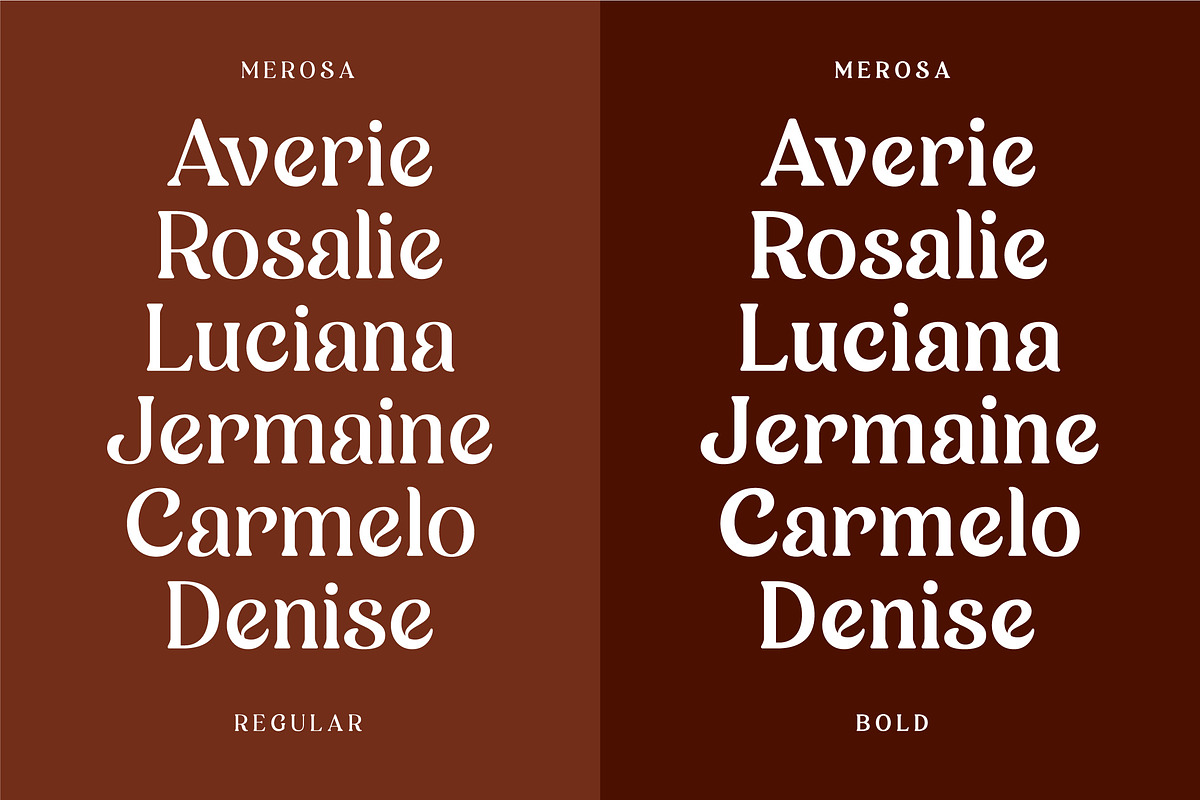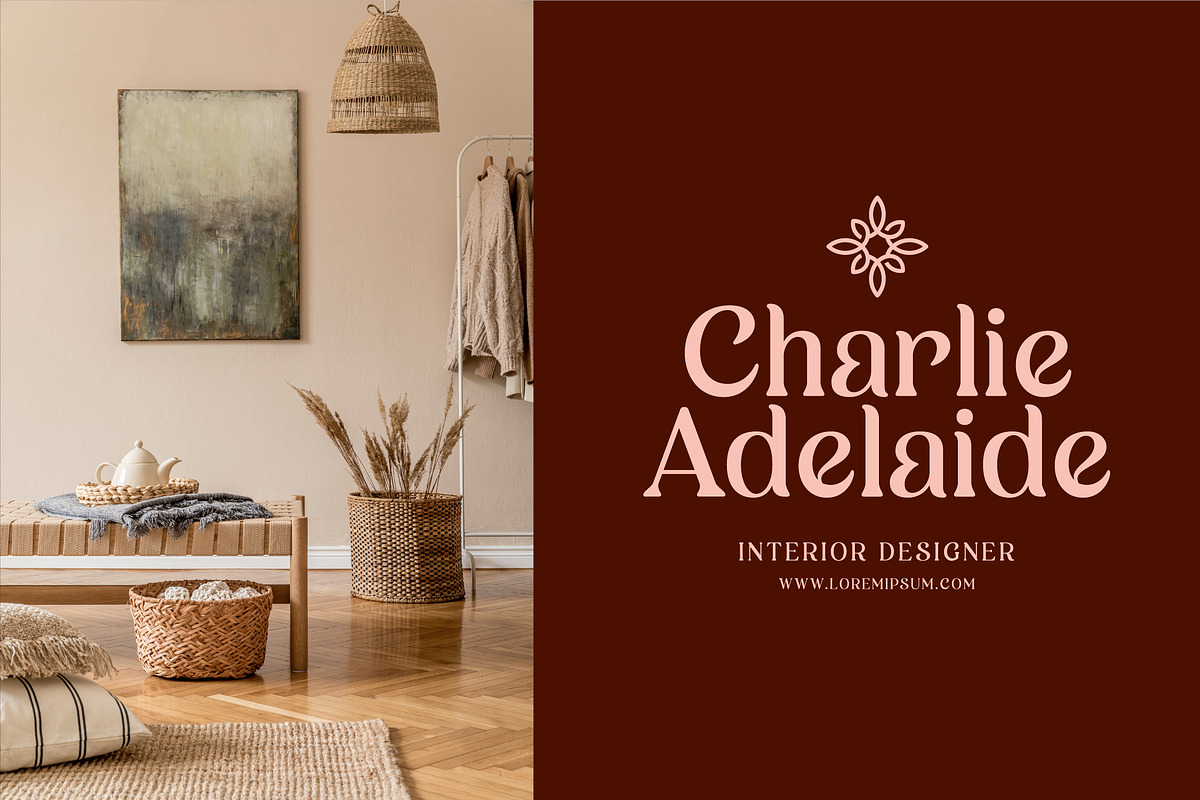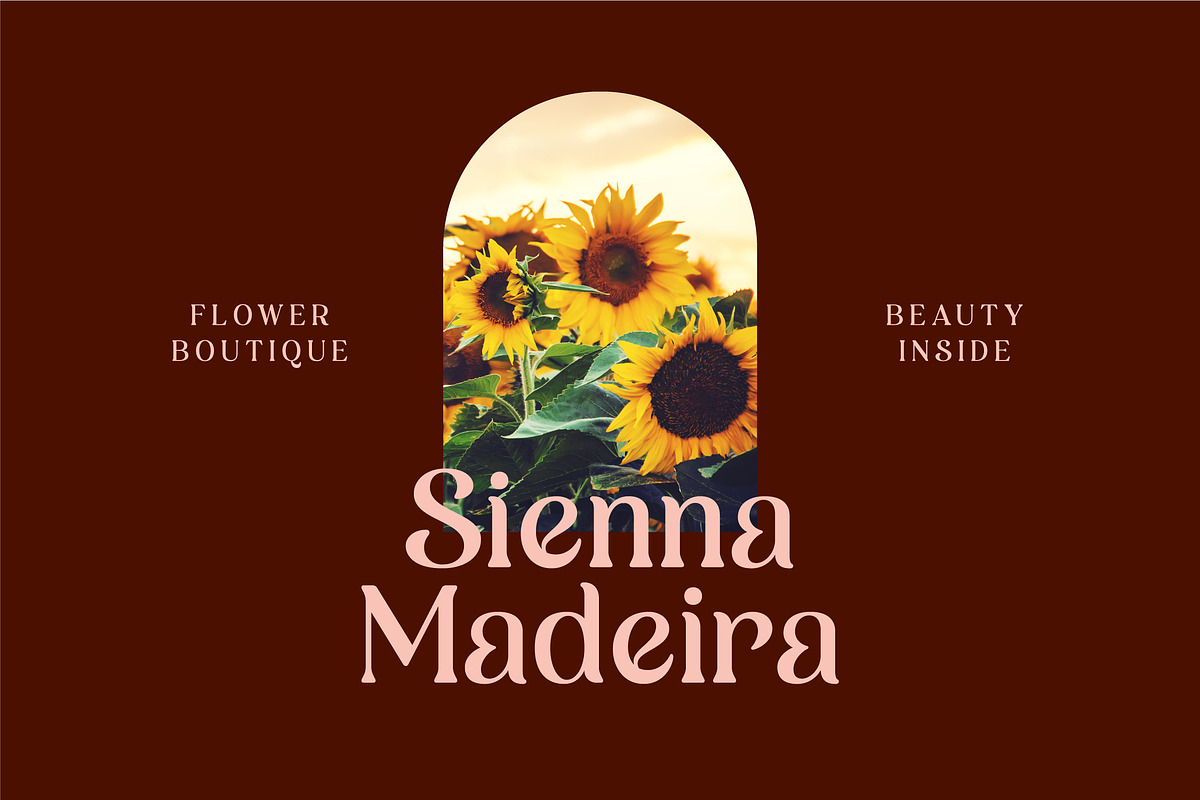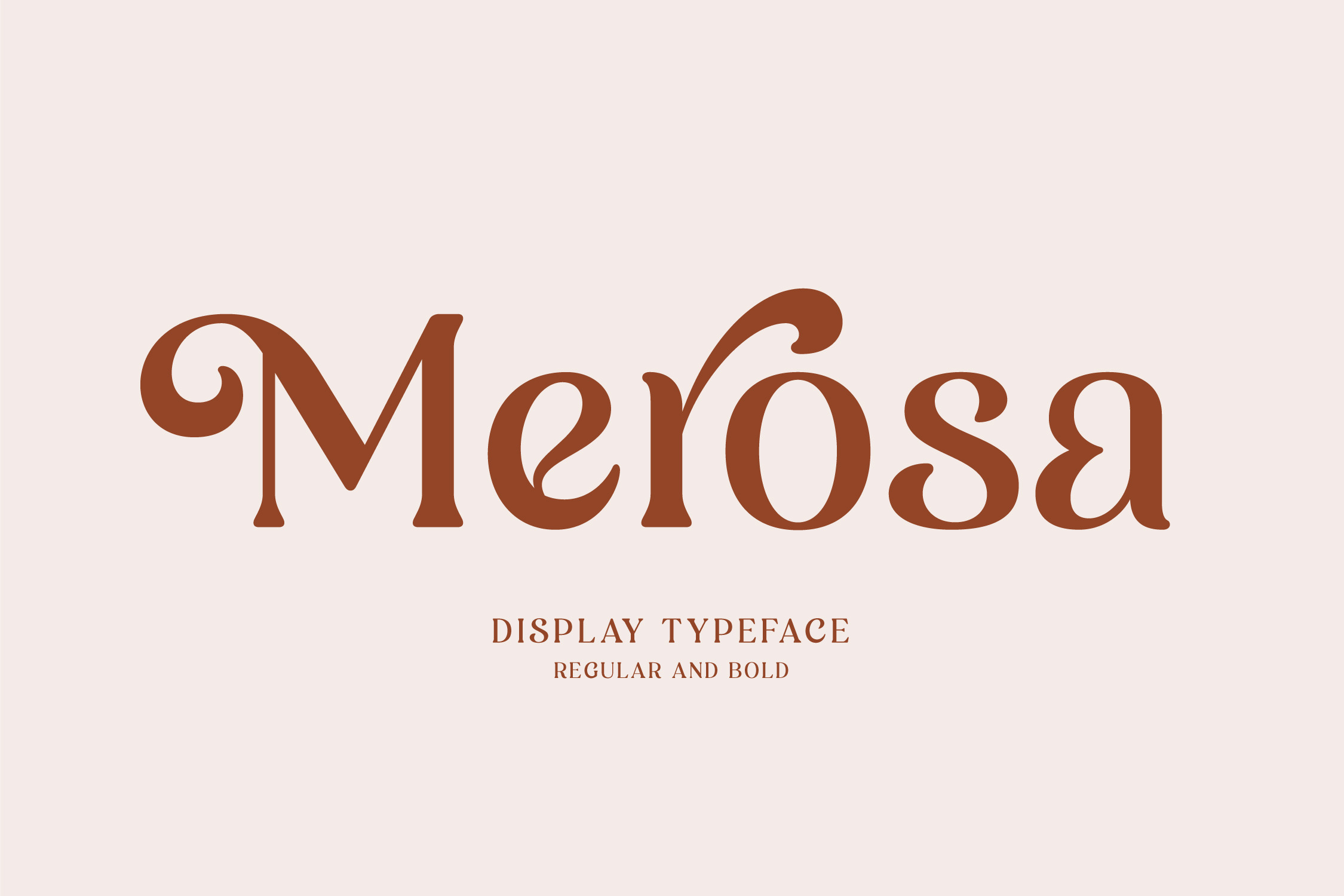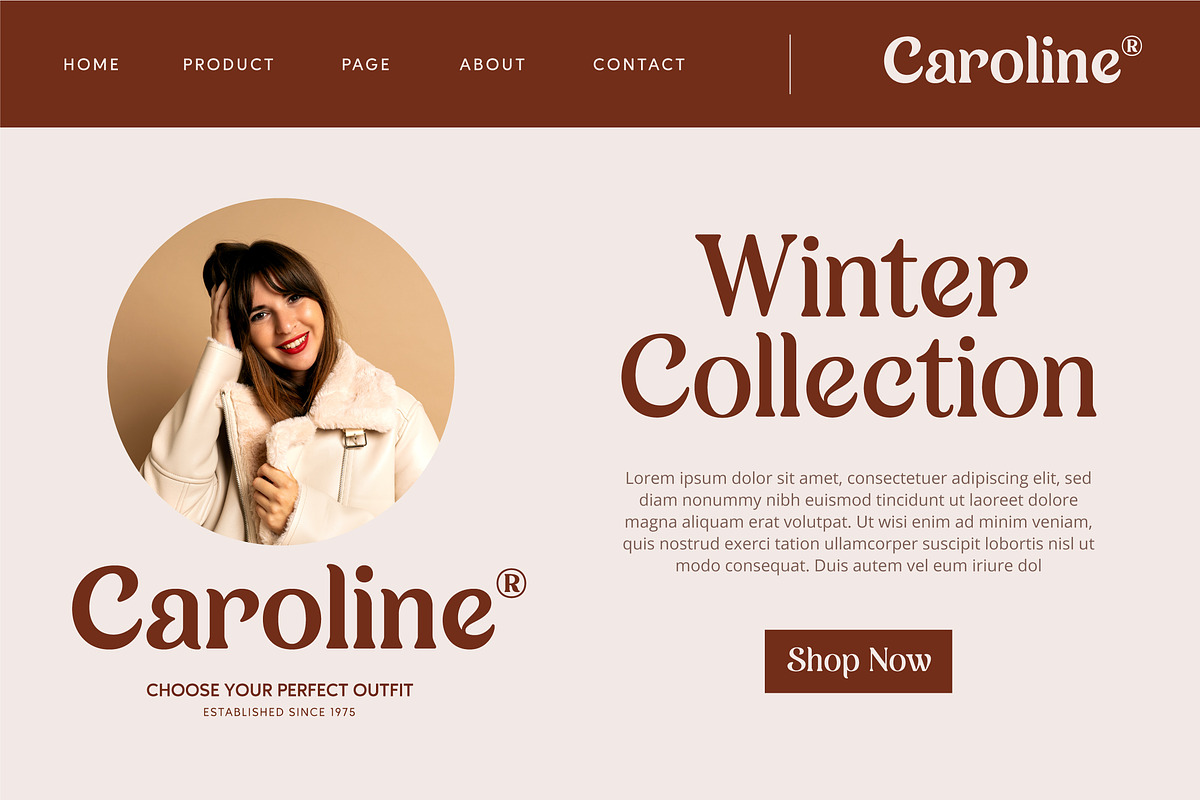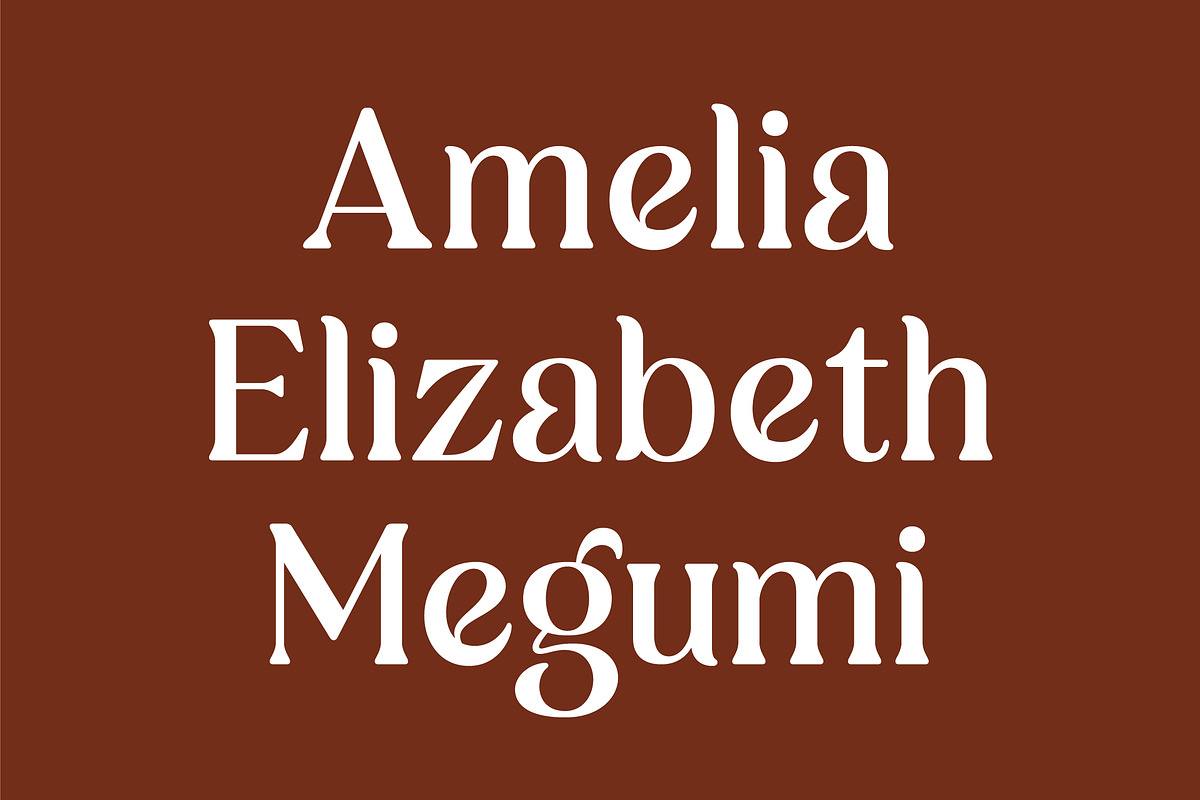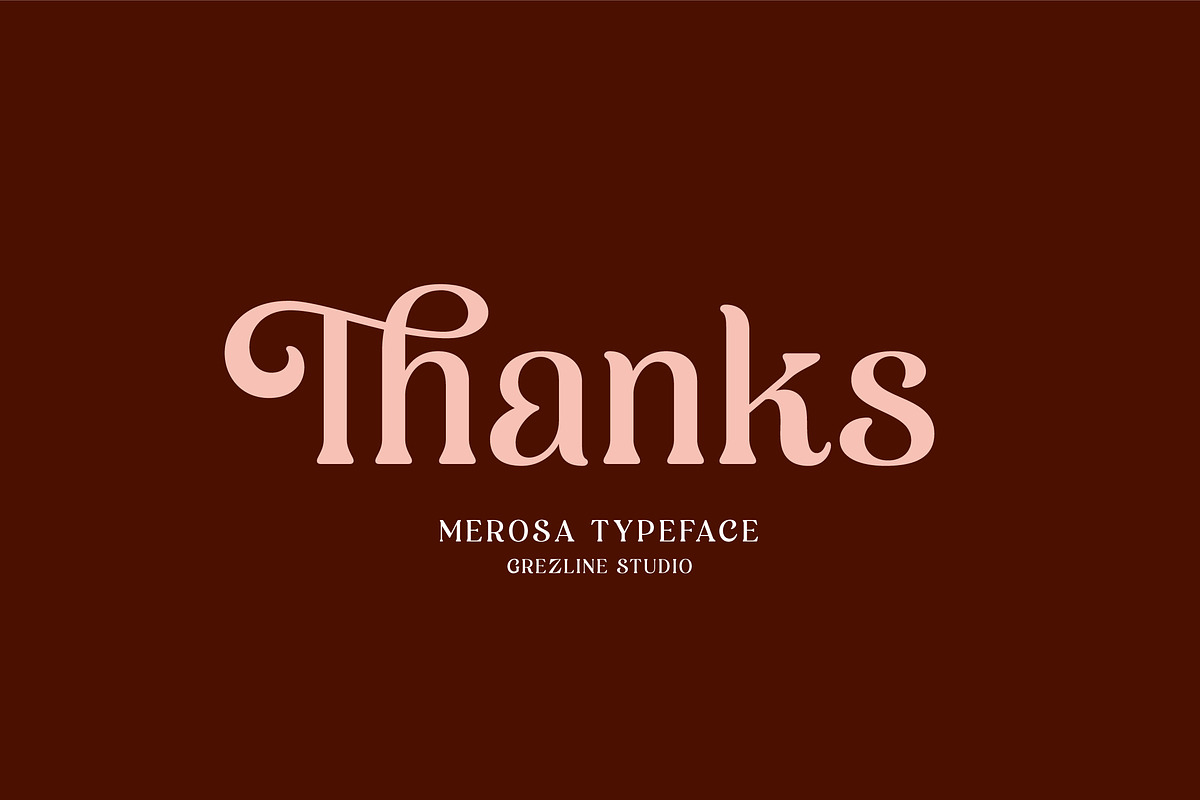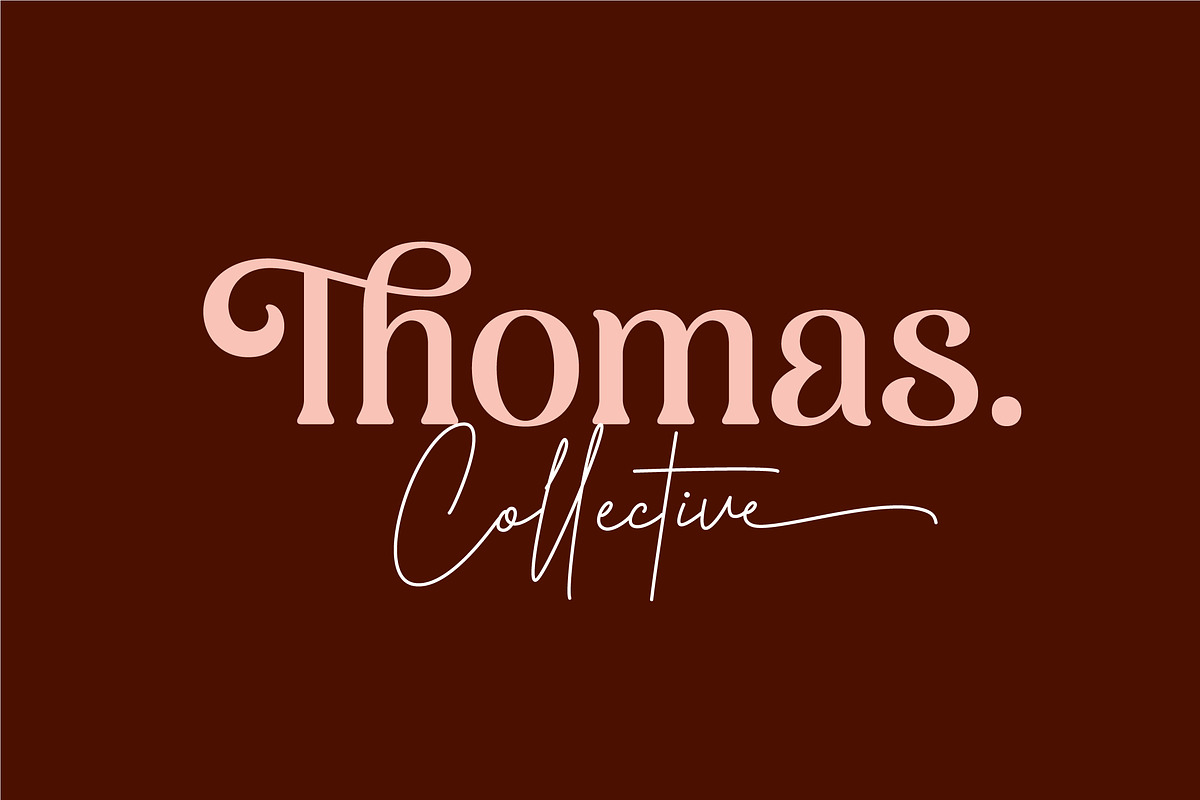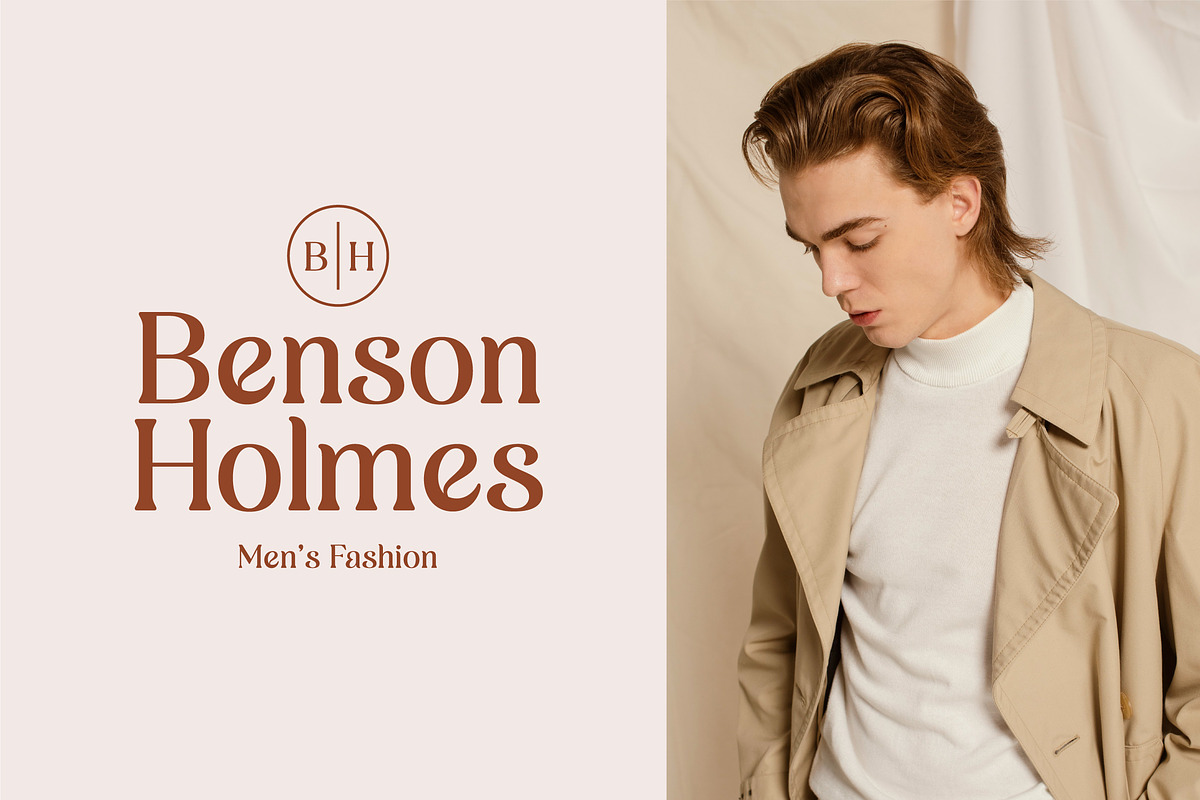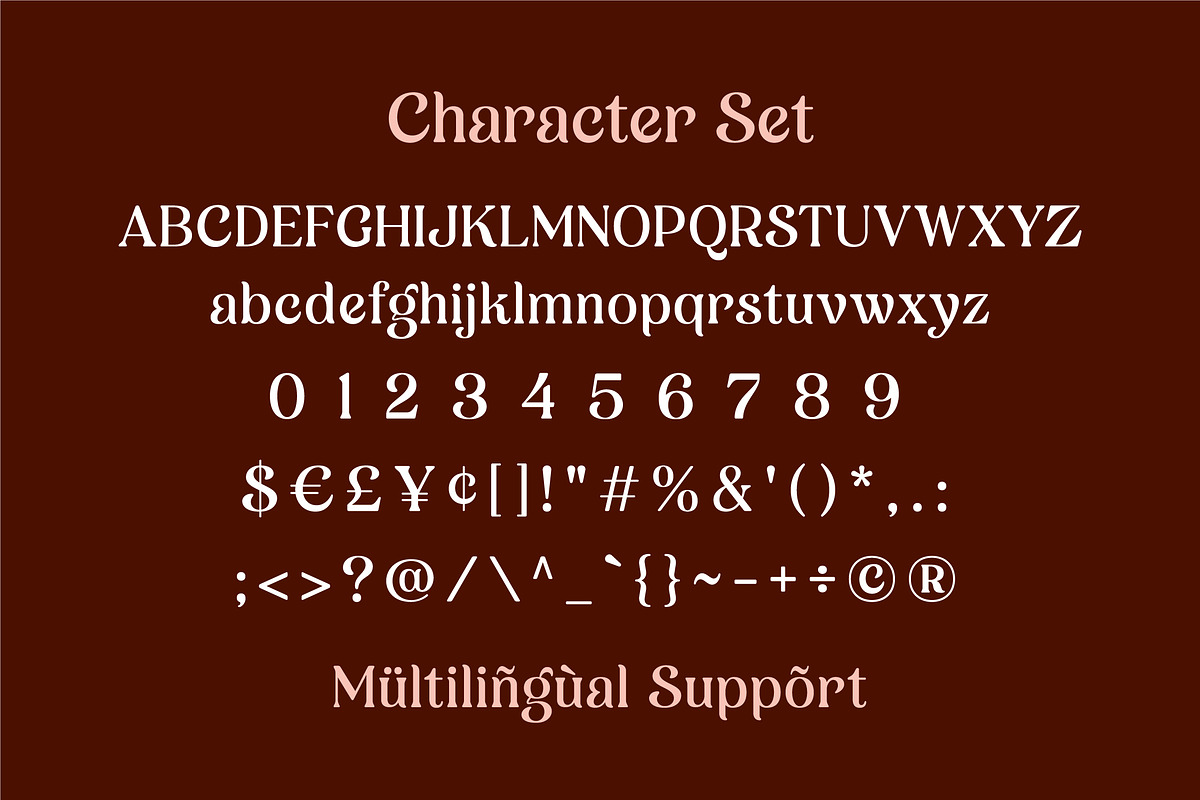
Merosa – Display Typeface
Merosa is an experimental display serif font that I crafted for fashion design. You can also use this font for other purposes such as logos, labels, invitations, magazines, books, greeting/wedding cards, packaging, stationery, novels, labels, any type of advertising and etc. Feature :
- Alternates and Ligatures
- Multilingual Language